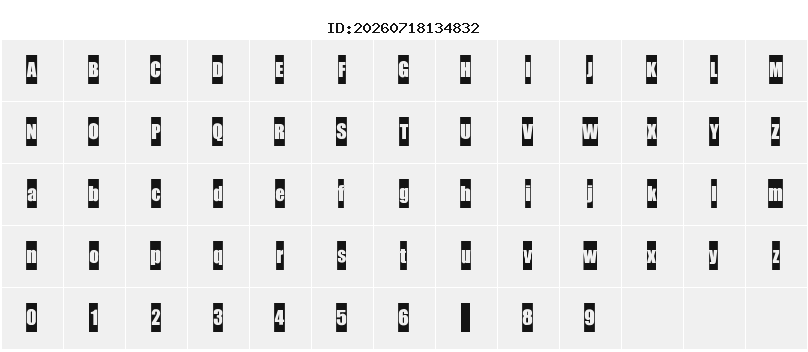
Capsle Preview
• Font Name: Capsle
• Full Font Name: Capsle Bold
About Capsle.ttf
Capsle.ttf is a modern, elegant sans-serif font designed for ultimate readability and visual harmony. Perfect for branding, headlines, web design, and print materials.